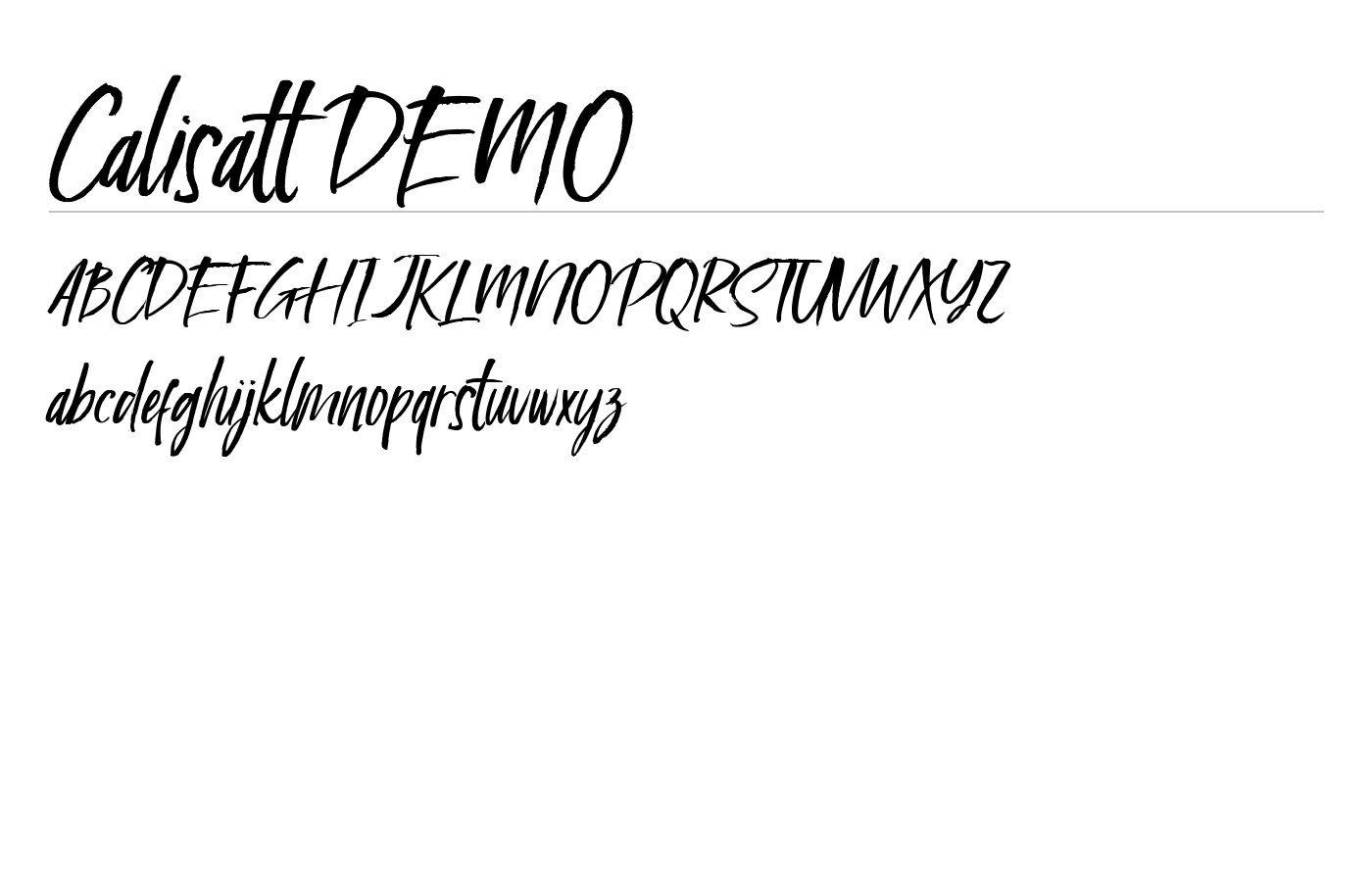
Calisatt DEMO is a lively and modern script font with a hand-lettered feel, featuring tall, narrow letterforms and a dynamic flow that suggests energetic brush strokes. Its casual yet elegant style makes it perfect for creative branding, invitations, and expressive headlines where a personal and artistic touch is desired. This font works well in projects that aim to combine stylish sophistication with an approachable, human vibe.
Calisatt DEMO Font
About Calisatt DEMO Font